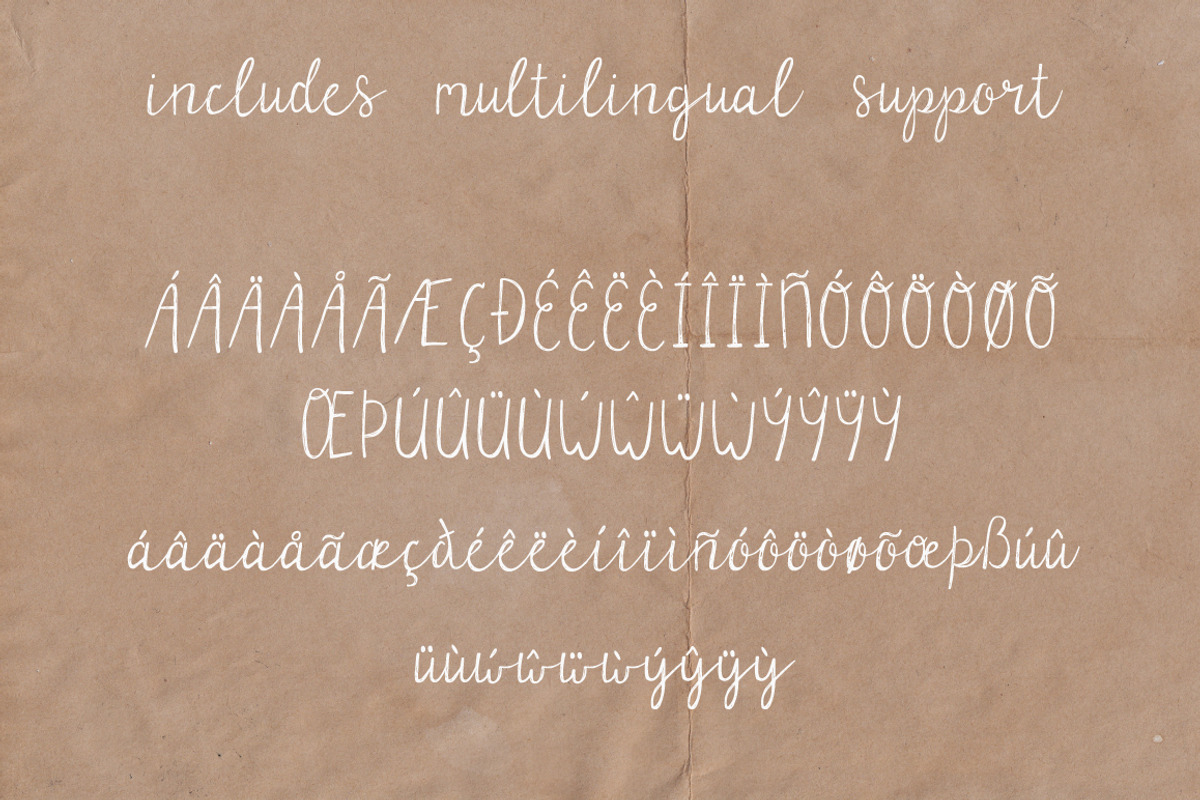
Parsnips Handwritten Script
Parsnips is a sweet and unique script font with a rustic vibe. It is inspired by warm root vegetables, sunshine, and homemade meals. It features leafy swashes to add some botanical flair to your project. Parsnips is perfect for magazines, home decor, digital scrapbooking, brand design, wedding invites, and more!
The swash glyphs are accessible in the Glyphs panel of the program you are using. Multilingual characters are included. Parsnips also features ligatures for a more authentic handwritten look. Enjoy!